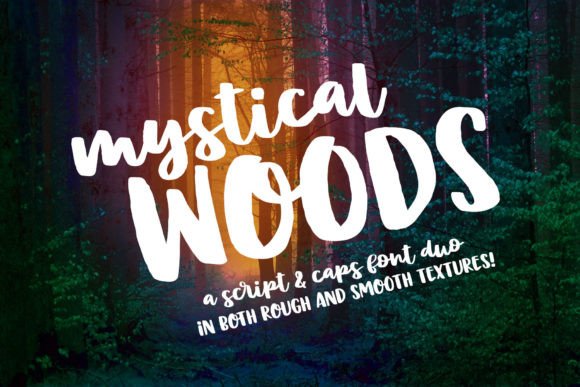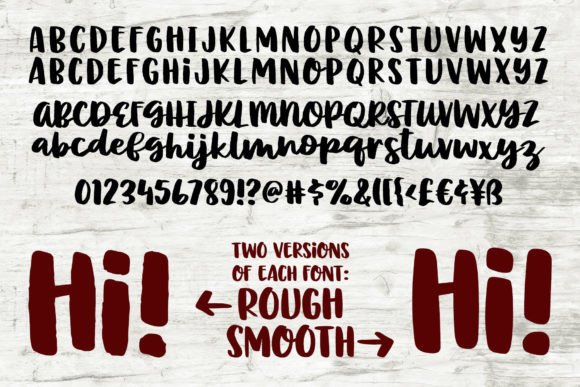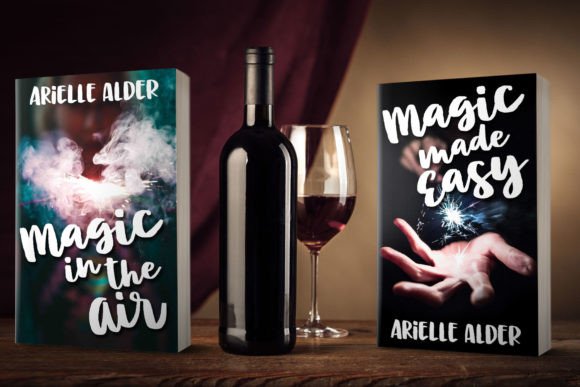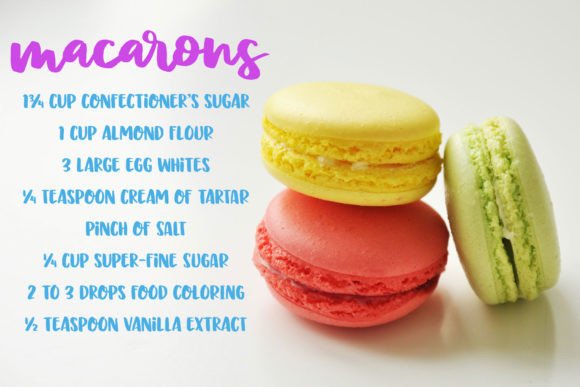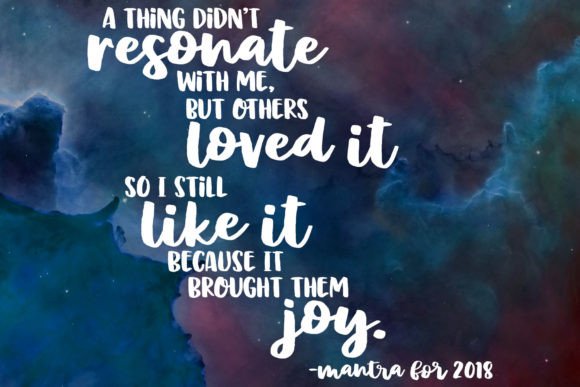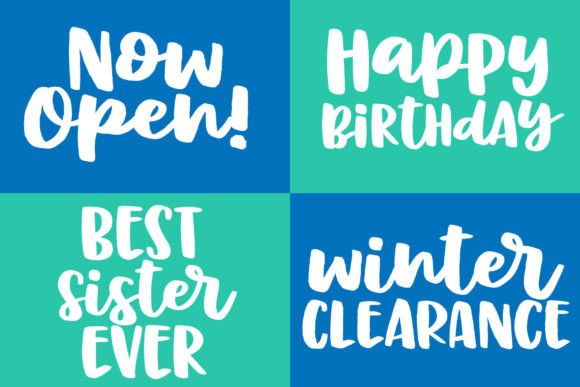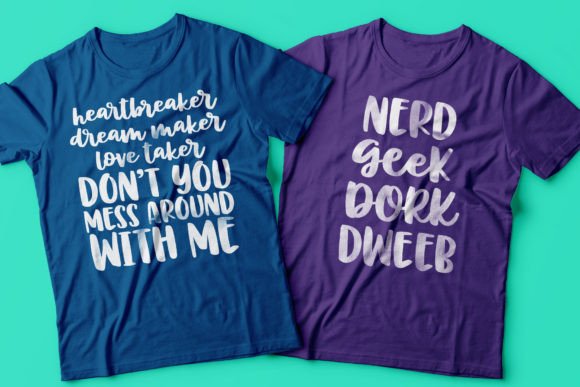
Mystical Woods Font
About Mystical Woods Font
Mystical Woods is a font duo that stands out for its enchanting and mystical aesthetic. Created with the simplicity of ink and a brush on paper, it captures the essence of authentic, handcrafted design. The duo includes two versions for each style – Rough and Smooth – offering flexibility for various design preferences.
In the Rough versions, the fonts retain a textured and inky appearance, preserving the raw and organic feel of the original brush strokes. On the other hand, the Smooth versions have undergone meticulous cleaning, resulting in a polished and refined look. This makes them well-suited for projects that require a smoother finish, especially in cut-crafting applications.
What sets Mystical Woods apart is its unique combination of script and caps fonts. This allows users to effortlessly blend script letters with caps letters, opening up a wide range of creative possibilities. The synergy between the two styles provides versatility, making Mystical Woods suitable for diverse design projects.
To enhance the natural flow of the script fonts, Mystical Woods includes 45 double-letter ligatures. These ligatures contribute to a seamless and connected appearance, adding a touch of sophistication to the overall design.
In terms of character sets, each font comprises the complete array of standard characters, including uppercase and lowercase letters, numbers from 0 to 9, and essential punctuation marks. Additionally, over 300 extended Latin characters are incorporated, ensuring comprehensive language support.
Whether you opt for the Rough or Smooth versions, Mystical Woods brings an element of magic to your creative endeavors. With its captivating script and versatile caps fonts, this duo is a valuable addition to any designer’s toolkit, offering the perfect blend of authenticity and refinement.